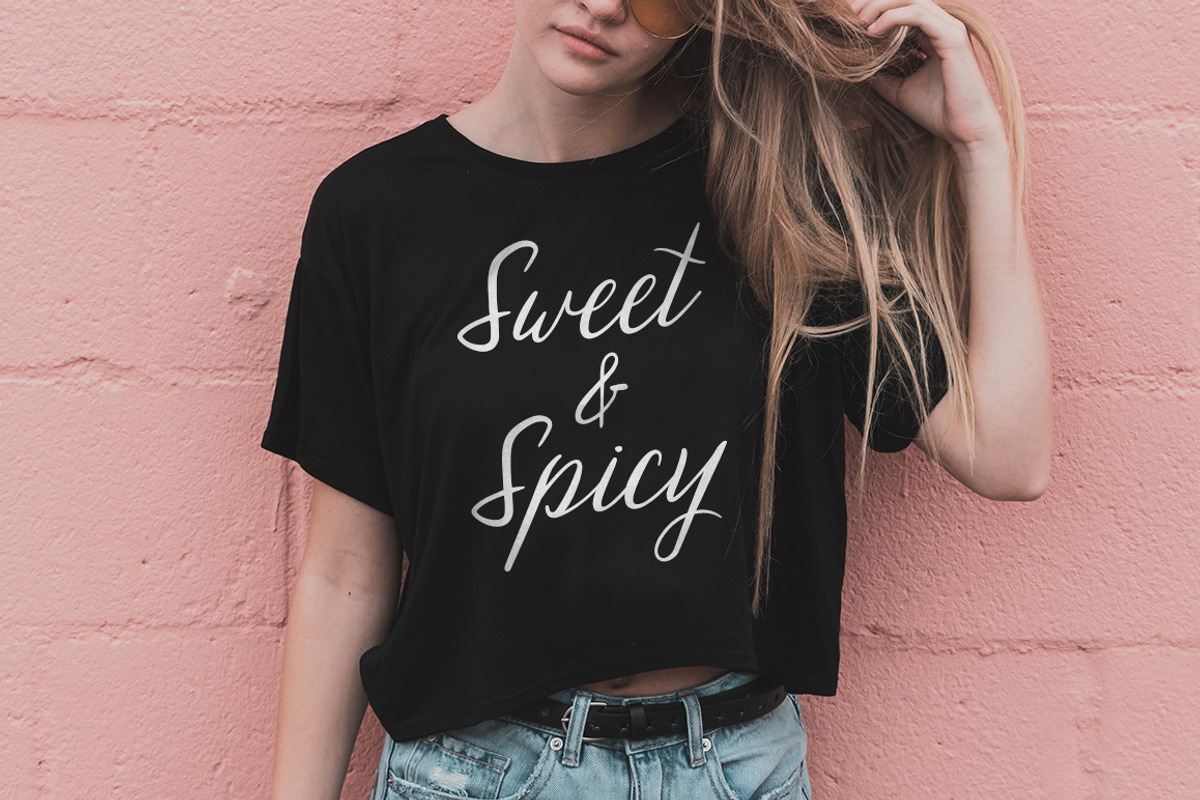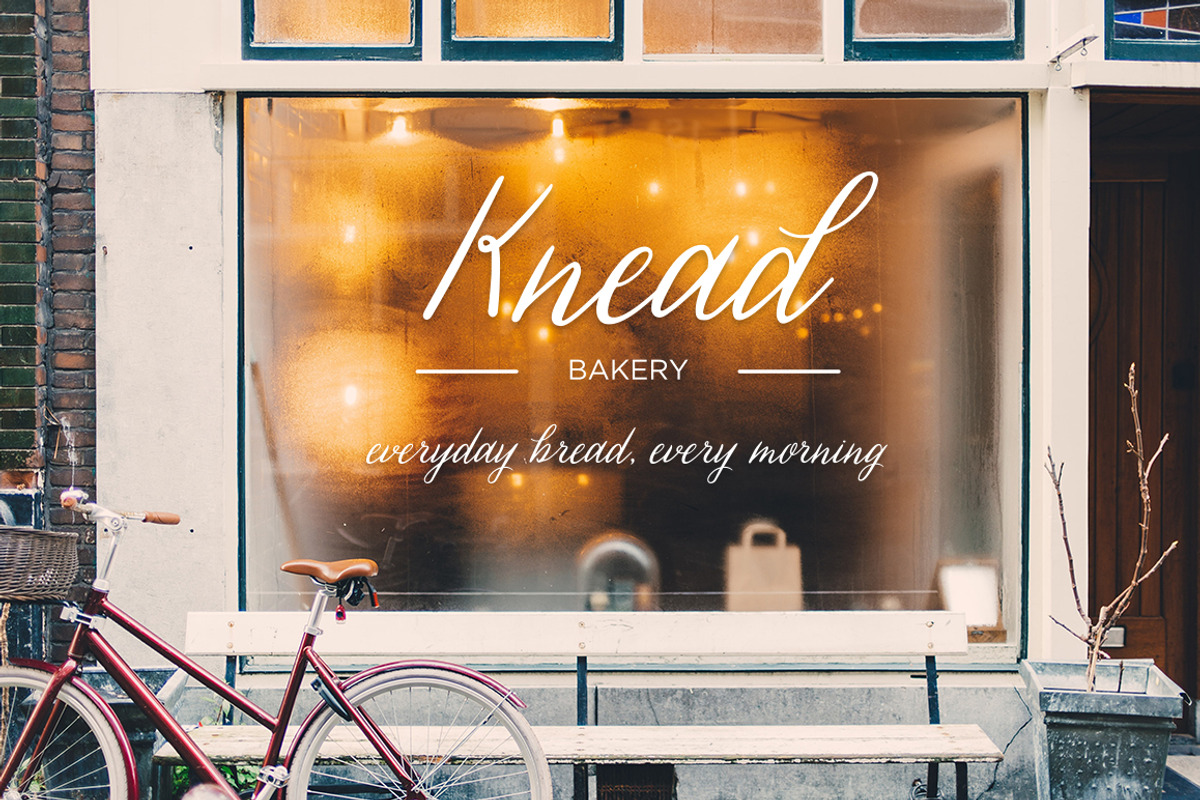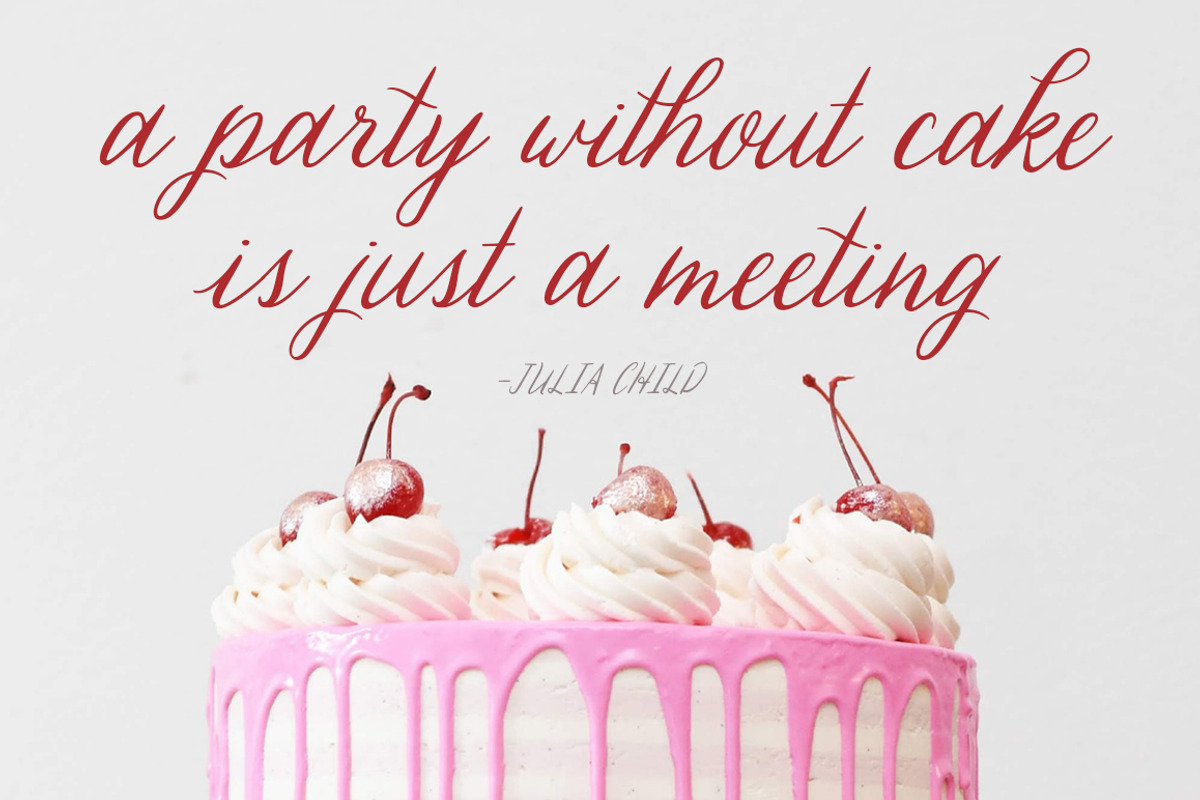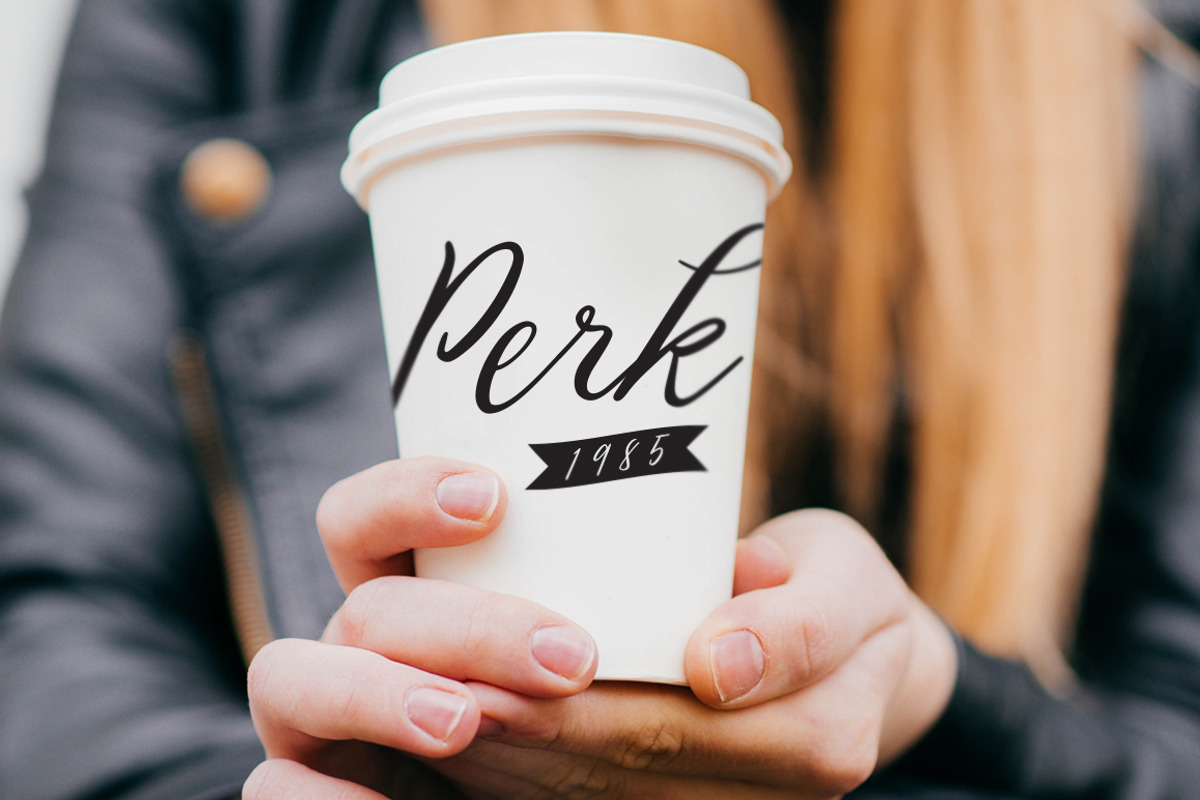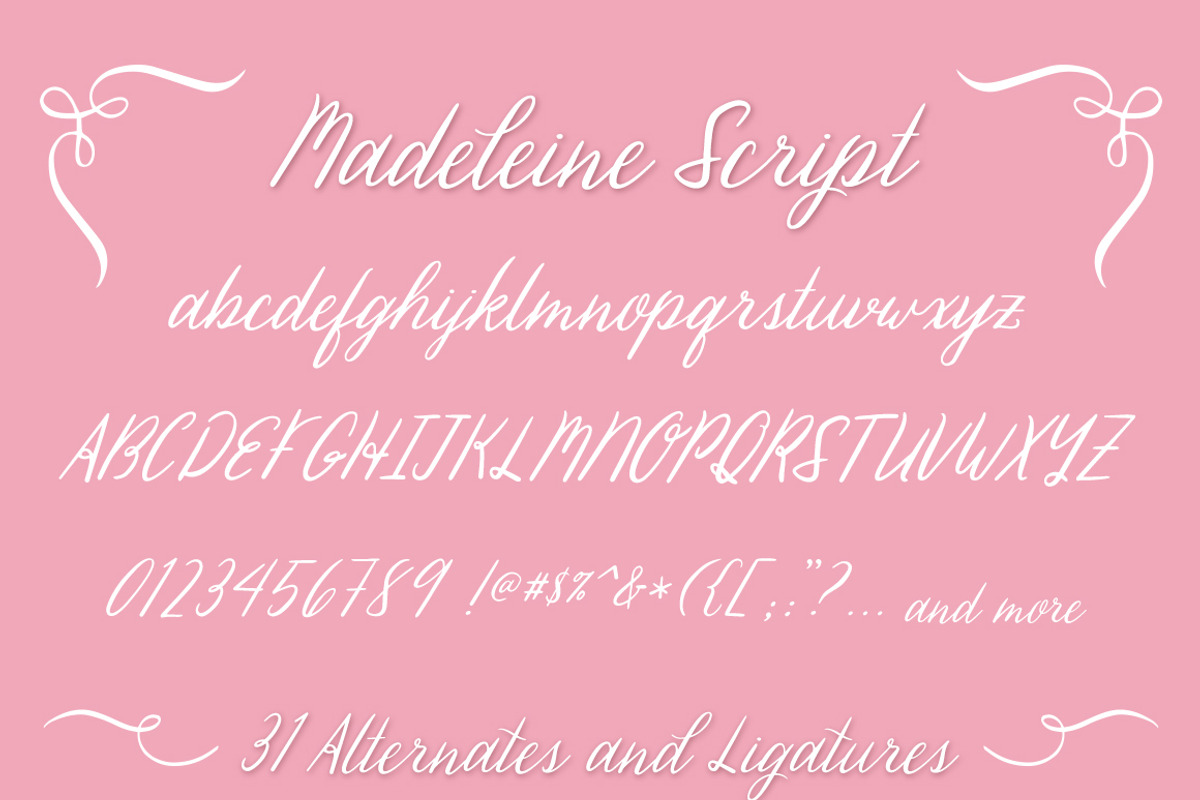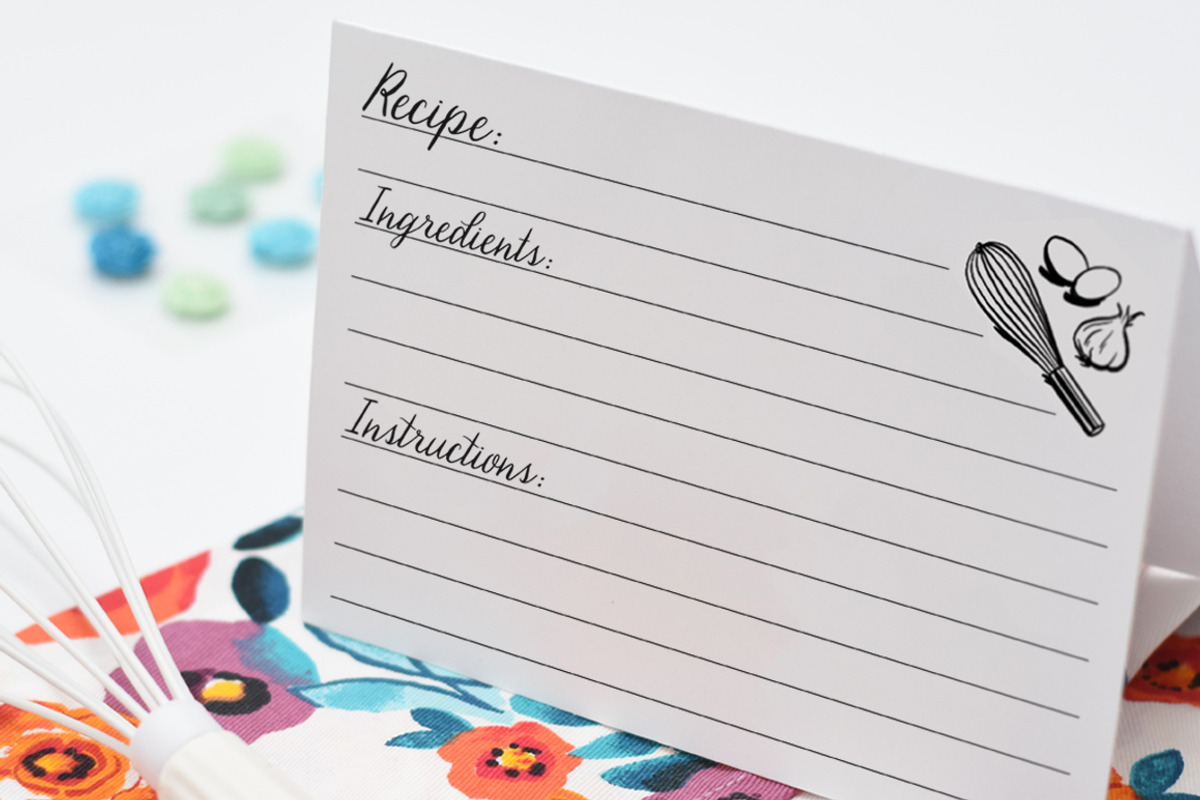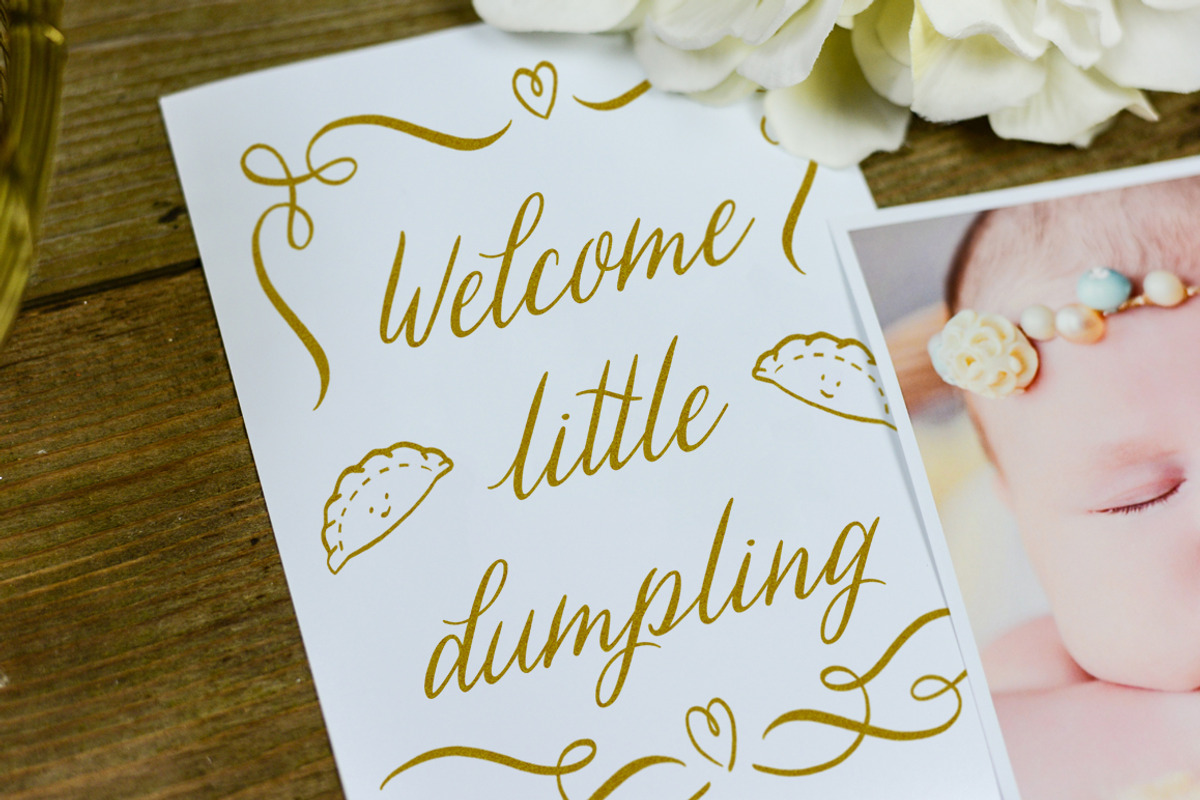
Madeleine - Handmade Script Font
Madeleine script is inspired by your Grandmother's handwriting on an old recipe card. Named for a simple and sweet cookie, that is elegant at the same time. An unassuming handwritten script, with a little feminine charm.
Great for all design projects including apparel, branding, stationery design, social posts, packaging, magazine layouts and more!
Madeleine Script has 31 Alternates and Ligatures to add little flourish to your project: 5 initial characters, 12 stylistic alternates, 1 discretionary ligature and 13 standard ligatures.